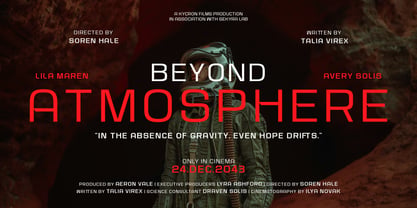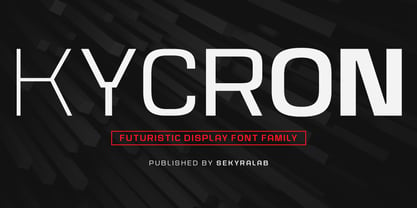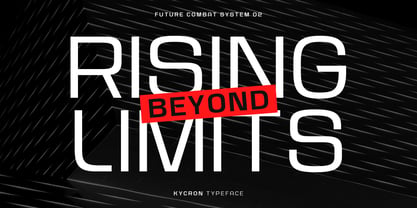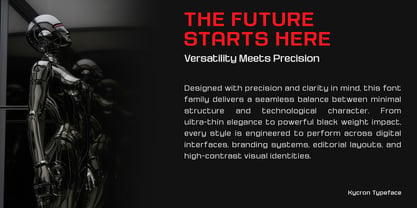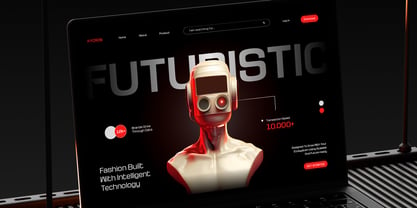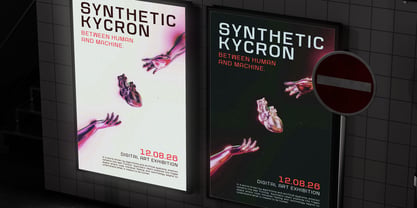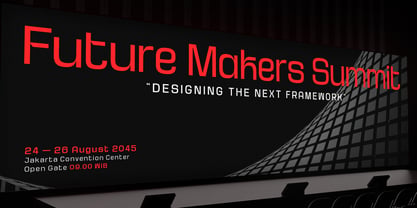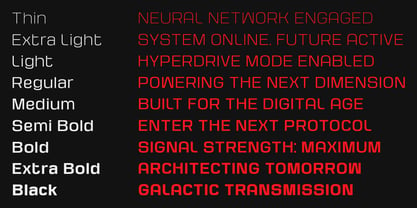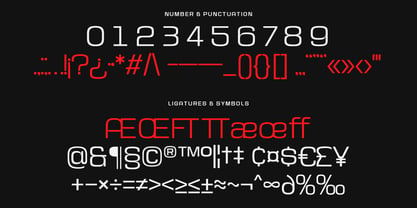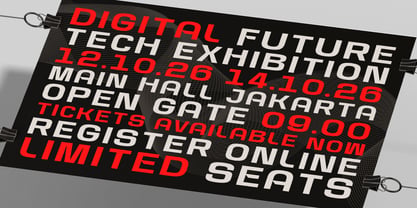
Kycron
The Kycron Font Family was designed by Hanif Al Irsyad and published by Sekyra Lab. Kycron contains 9 styles and family package options. More about this family
Kycron stands out as a display font family defined by clean geometry, perfect symmetry, and modern sci-fi style. Its sharp vertical terminals and smooth rounded curves offer a strong technological presence while preserving clarity and balance. Spanning nine weights from Thin to Black, this system adapts seamlessly to diverse design needs—from bold headlines and layered typographic concepts to editorial layouts and branded visuals. The minimalist yet assertive structure of Kycron ensures visual coherence and effortless hierarchy across all weights. It is particularly well-suited for tech branding, gaming graphics, esports identities, cyberpunk themes, and futuristic user interfaces. The font maintains distinctive impact at large display sizes but remains crisp and legible in supporting roles, giving designers practical versatility for demanding digital and print contexts.
Sekyra Lab is an independent type foundry dedicated to crafting distinctive display fonts for contemporary design needs. With a focus on strong visual identity and expressive letterforms, the foundry develops typefaces that balance character, clarity, and usability. Each typeface is designed with careful attention to structure, spacing, and proportion, ensuring consistency across glyphs while maintaining a unique and recognizable style. Sekyra Lab explores a wide range of typographic directions from bold and experimental forms to refined and elegant serifs adapting to diverse creative applications. The foundry prioritizes functionality alongside aesthetics, offering multilingual support, well-crafted punctuation, and essential OpenType features to support professional use. Every release is built to perform across various design contexts, including branding, editorial layouts, advertising, and digital media. Through a commitment to quality and continuous exploration, Sekyra Lab delivers typefaces that enable designers to create impactful and memorable visual communication.